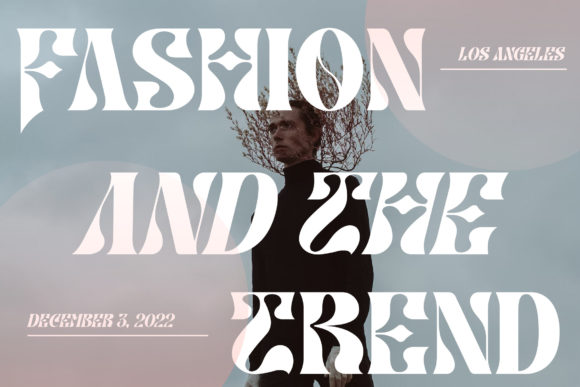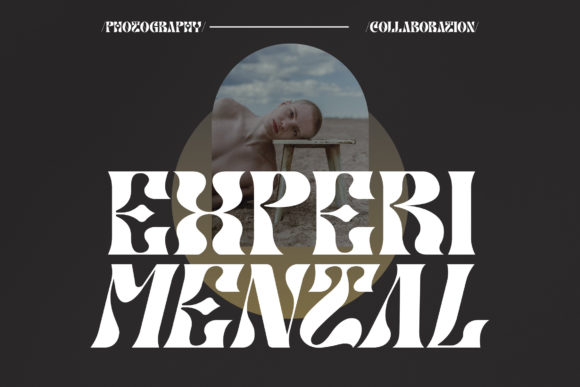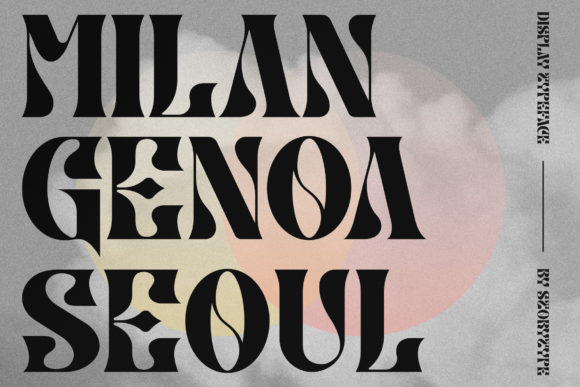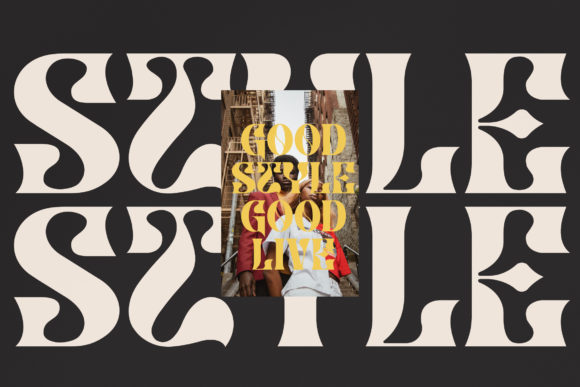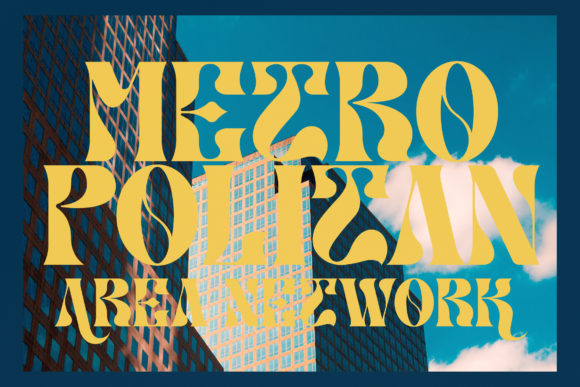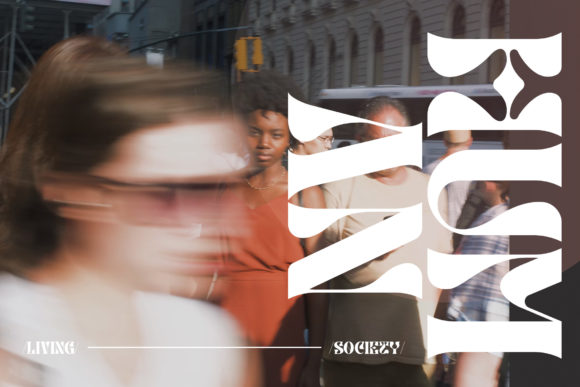
Introduction to Heman Font
Imagine being in a bustling design studio, surrounded by sketches, color palettes, and an endless list of fonts to choose from. You’re on the hunt for the perfect font to elevate your creative project, and suddenly, you stumble upon Heman Font. Its elegant and luxurious vibe instantly captures your attention, and you can’t help but feel a spark of excitement.
As a designer, you know the importance of having the right font to convey the tone and style of your project. Heman Font is a high-quality serif font that’s perfect for luxury logo designs, book titles, fashion brands, and magazine covers. With its free download option, you can experiment with this versatile font without breaking the bank.
Heman Font
- High-quality font designed for creative projects, perfect for graphic designers and artists.
- Features a large character set, including Latin, Cyrillic, and Greek alphabets, making it suitable for multilingual projects.
- Includes over 500 glyphs and supports advanced typography features, such as ligatures and stylistic sets.
Honest Review: Heman Font
I recently had the chance to work with the Heman Font, and I’m excited to share my honest review with you. As a designer, I’m always on the lookout for high-quality design resources to enhance my creative projects.
- High quality: The font is well-designed and looks great in various contexts.
- Limited customization options: While the font is great on its own, it may not be easily customizable to fit specific design needs.
- Not suitable for all design styles: The font’s aesthetic may not be a good fit for all design styles or projects.
Overall, I’m impressed with the Heman Font. It’s a great addition to any designer’s toolkit, especially for free. While it may have some limitations, it’s definitely a high-quality design resource worth considering for your next creative project.
Heman Font: A High Quality Design Resource for Creative Projects
Tips for Getting the Most Out of Heman Font
To get the most out of Heman Font, use it in conjunction with a transparent background to create a clean and modern design. You can also use the font in combination with other design resources, such as graphics and icons, to create a cohesive and visually appealing design.
Common Use Cases for Heman Font
Heman Font is a versatile font that can be used in a variety of creative projects, including logos, brochures, and websites. Its high quality and unique design make it an ideal choice for designers who want to create a professional and eye-catching design.
Alternatives to Heman Font
Montserrat is a high-quality sans-serif font perfect for creative projects that require a modern and clean design. It’s available for free download and comes in various weights and styles. Use Montserrat for headings and titles in your design to give it a sleek and sophisticated look.
Montserrat is similar to Heman Font in terms of its modern design, but it has a more geometric and urban feel to it. It’s ideal for projects that require a lot of text, such as magazines, newspapers, and websites.